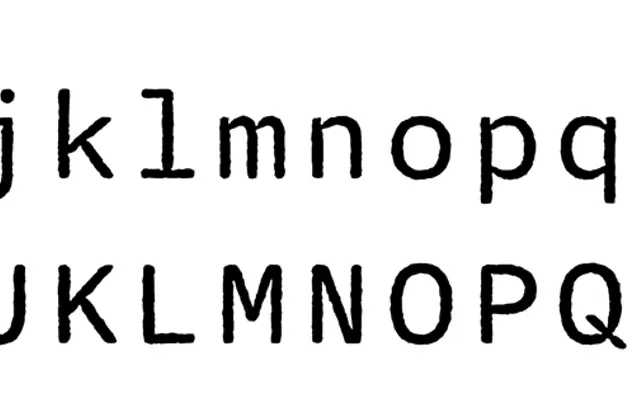
Nitti Typewriter
Bold Monday · Pieter van Rosmalen, Yanek Iontef · 2007
A monospaced typeface from Bold Monday that channels typewriter aesthetics through five stylistic variants, each evoking a different aspect of mechanical type.
Built on the foundation of Nitti, this family extends the grotesque-rooted monospaced design into overtly typewriter-inspired territory. The five variants — Normal, Open, Underlined, Corrected and Cameo — each reference a distinct typewriter convention, from ink strike-throughs to correction marks. Character coverage spans Latin, Greek, Cyrillic and Hebrew, supporting an exceptionally broad range of European and Asian languages.
A monospaced typeface rooted in 19th-century Grotesque sans-serif design, deliberately styled to evoke typewriter aesthetics through five distinct visual treatments including corrected text and underlined variants.